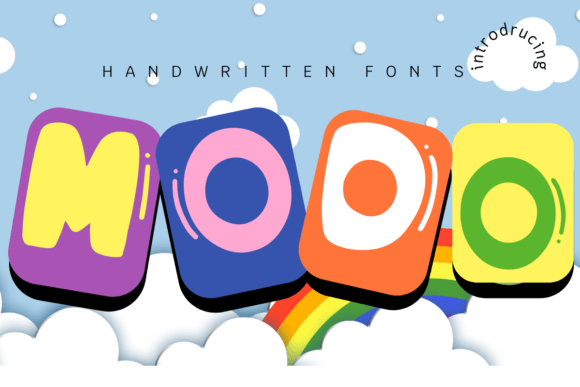
Get ready to embrace the charm of Modo Font, the ultimate display font that will captivate your designs with its playful and friendly aura. Crafted by the talented TONGMON DRAW, Modo Font enchants with its graceful letterforms and fluid strokes, exuding a sense of joy and lightheartedness that will elevate your creations to new heights. Whether you seek to craft vibrant posters, charming children-themed designs, or eye-catching stickers, Modo Font stands as your perfect companion.
Step into a world of visual delight as Modo Font takes center stage, its unique characteristics weaving a tapestry of creativity. Its playful nature dances across your designs, adding a touch of whimsy and wonder that resonates with your audience. With Modo Font as your ally, transform your posters into captivating masterpieces that draw the eye and ignite the imagination. Create children-themed designs that burst with color and cheer, capturing the essence of youth and innocence. Adorn your stickers with Modo Font's charm, turning them into playful expressions of individuality that spark joy wherever they're seen.
Modo Font's versatility extends beyond mere aesthetics; it's a font that adapts and conforms to your creative vision. Its inherent adaptability makes it the perfect choice for a wide range of projects, seamlessly blending into various design styles and themes. Unleash your creativity and let Modo Font guide you on an artistic odyssey, whether you're crafting marketing materials, social media graphics, or enchanting invitations.